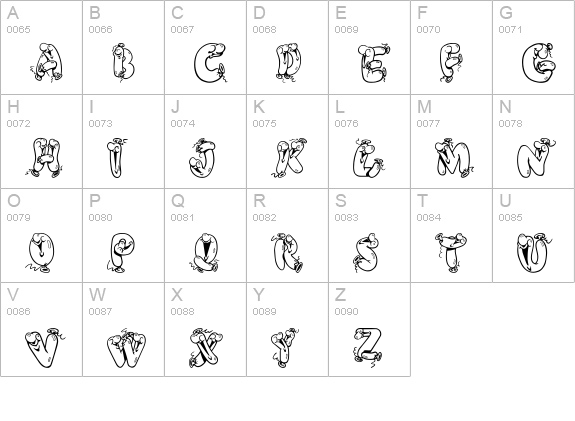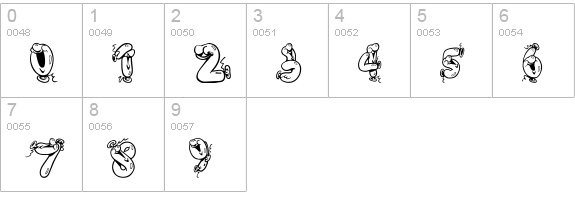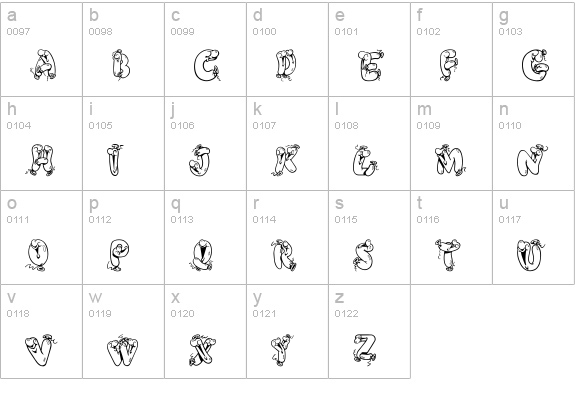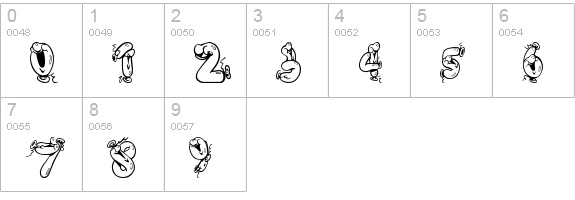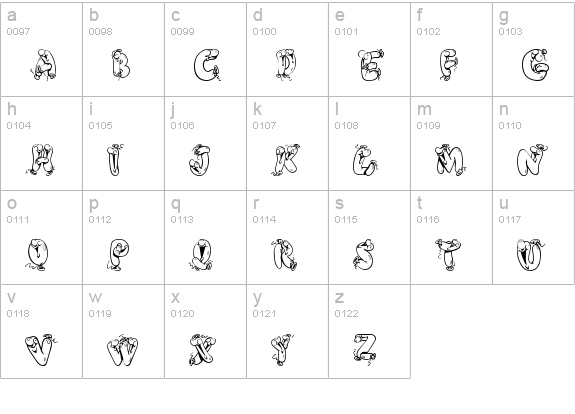
Introducing Helium Heaven, a whimsical and ethereal font that will transport you to a world of pure enchantment. With its delicate curves and graceful strokes, this font captures the lightness and beauty of helium-filled balloons floating effortlessly through the sky. Helium Heaven is the perfect choice for any project that requires a touch of whimsy and elegance. Whether you're designing invitations for a dreamy fairytale wedding, creating a logo for a children's book, or adding a playful element to your website, this font will add a touch of magic to any design. The best part? Helium Heaven is absolutely free! As a gesture of our appreciation for the creative community, we have made this font freely available to download at FontsMarket.com. So you can bring a little piece of heaven to your designs without breaking the bank. But don't be fooled by its whimsical appearance - Helium Heaven is also a highly versatile font. With a full range of uppercase and lowercase letters, numerals, punctuation marks, and special characters, you'll have all the tools you need to express your creativity and make every project truly unique. So why wait? Download Helium Heaven today and let your imagination take flight. Embrace the magic and charm of this font, and watch as your designs soar to new heights of beauty and wonder. With Helium Heaven, the possibilities are endless.